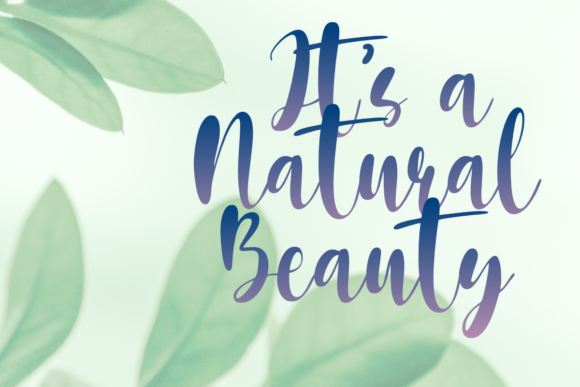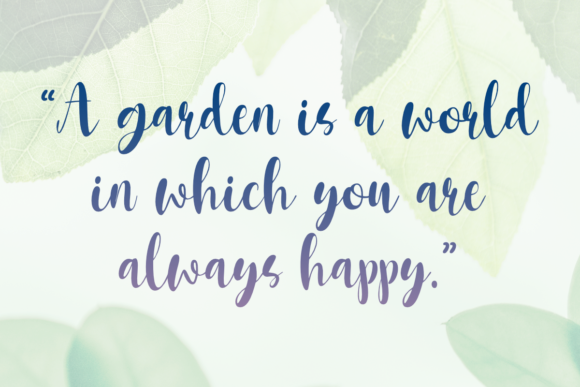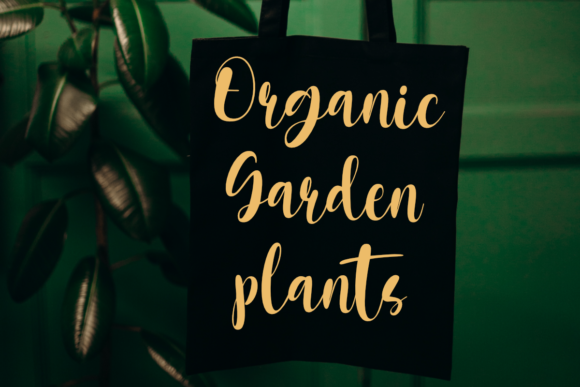
Fresh Garden Font
About Fresh Garden Font
Fresh Garden is a crafty and beautiful script font. It looks gorgeous on various creations that require a neat and stylish touch. Add it confidently to your projects, and you will love the results.